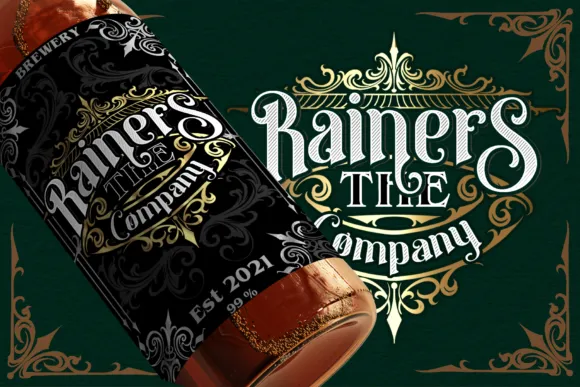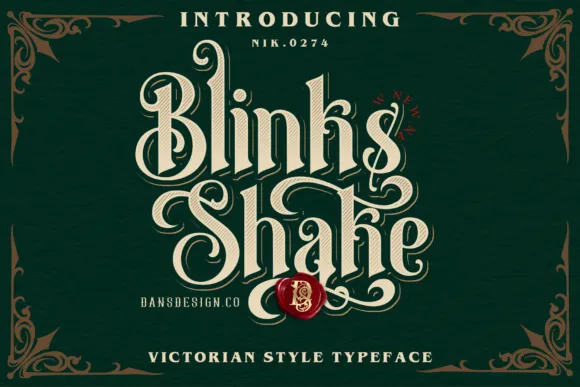
Blinks Shake Font is a victorian styled and stylish blackletter text style. Succumb to its bewitching style and use it to make stunning wedding solicitations, delightful fixed workmanship, eye-getting web-based entertainment posts, and significantly more!